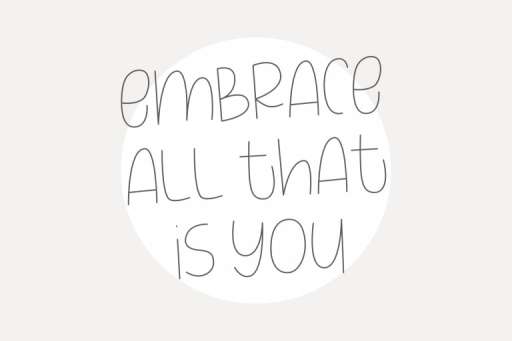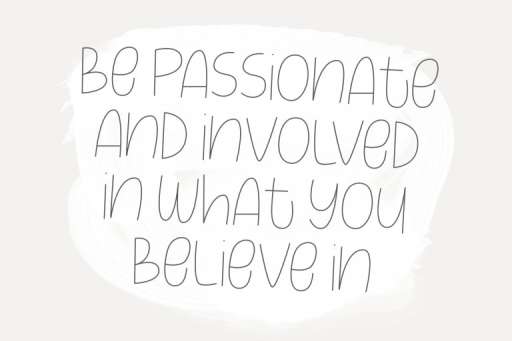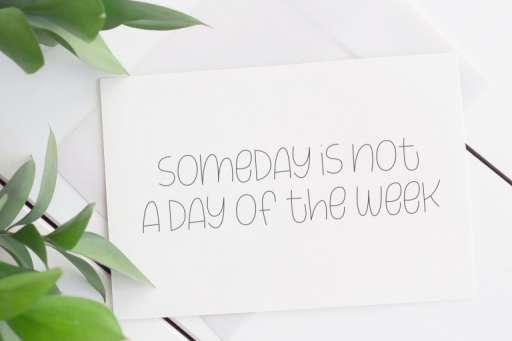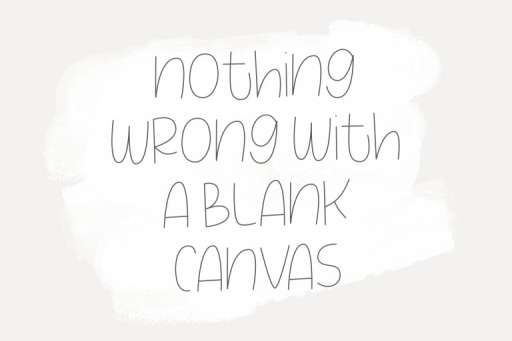
Peach Farm Font - Handwriting Font Jimtype Studio
Peach Farm Font
Peach Farm – Farmhouse Font
Peach Farm is an all-caps font. This font perfects for farmhouse design, shirts, mugs, feminine projects, quotes, printed, and much more!